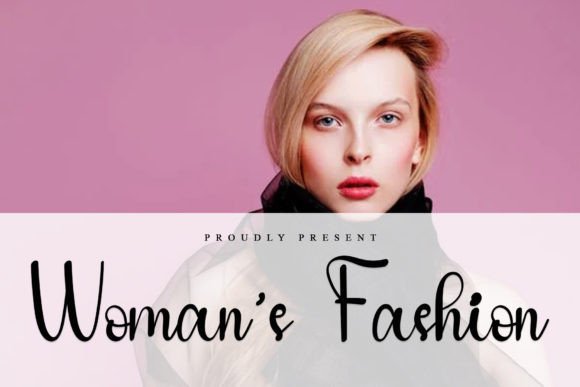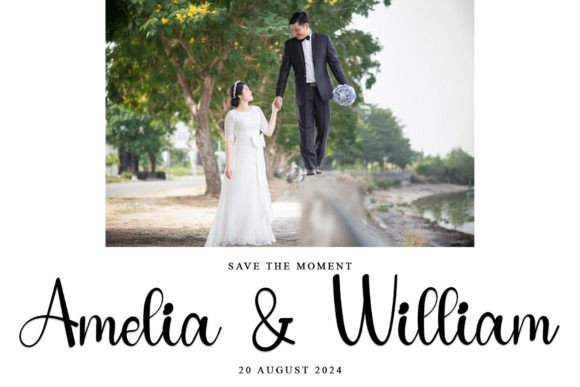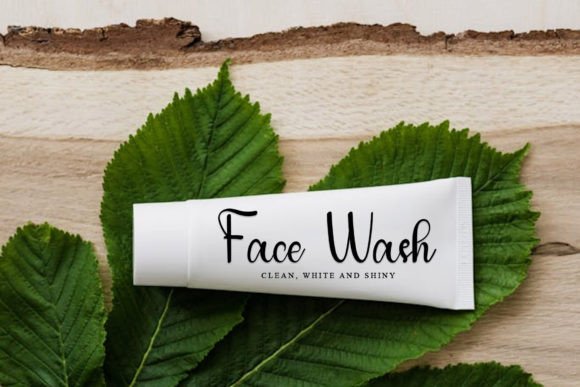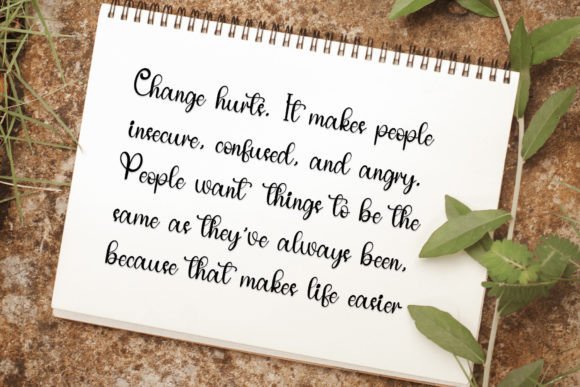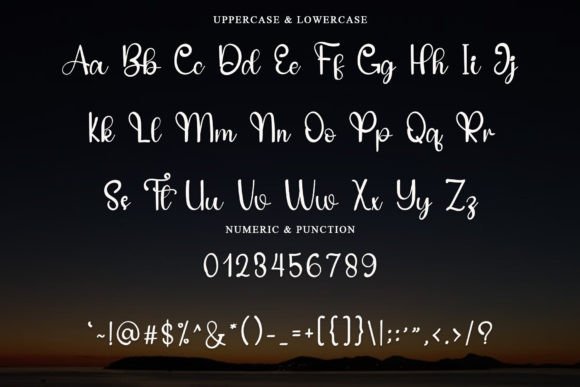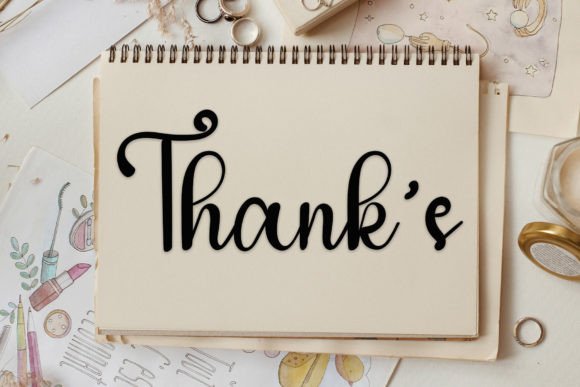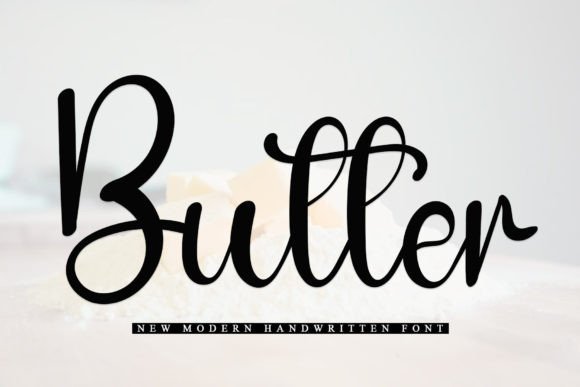
The Butter Font: A Deliciously Elegant Addition to Your Design Toolkit
I’ll never forget the time I was working on a DIY project for a client’s wedding invitation. I had the perfect design concept, but I was struggling to find a font that captured the right balance of elegance and whimsy. That’s when I stumbled upon the Butter font, and it was love at first sight! 💕 In this article, I’ll share my experience with this beautiful handwritten font, its features, and how to make the most of it in your designs.
An Honest Review of Butter Font
• 💫 Elegant yet playful: Butter font strikes the perfect balance between sophistication and fun.
• ✅ Highly versatile: Suitable for a wide range of design projects, from Instagram posts to calligraphy scripts.
• 🎨 Artistic flair: The font’s unique character makes it perfect for creative projects that require a personal touch.
• 📚 Extensive glyphs and OpenType features: Unlock the full potential of your designs with Butter’s extensive character set.
While Butter font is an excellent addition to any design toolkit, there are a few minor limitations to consider:
• 🤔 Limited use in formal or corporate designs: Butter font’s playful nature might not be suitable for very formal or corporate projects.
• ⚠️ May require manual kerning: As with any handwritten font, some manual kerning might be necessary to achieve optimal results.
The Story Behind Butter Font
Butter font was carefully crafted by a talented designer with a passion for elegant and playful typography. The designer’s goal was to create a font that would add a touch of whimsy to any design project, while still maintaining a level of sophistication. The result is a beautiful, handmade font that’s perfect for a wide range of creative projects.
Q: What makes Butter font unique?
A: Butter font’s unique character, elegant yet playful design, and extensive glyphs and OpenType features make it a standout in any design toolkit.